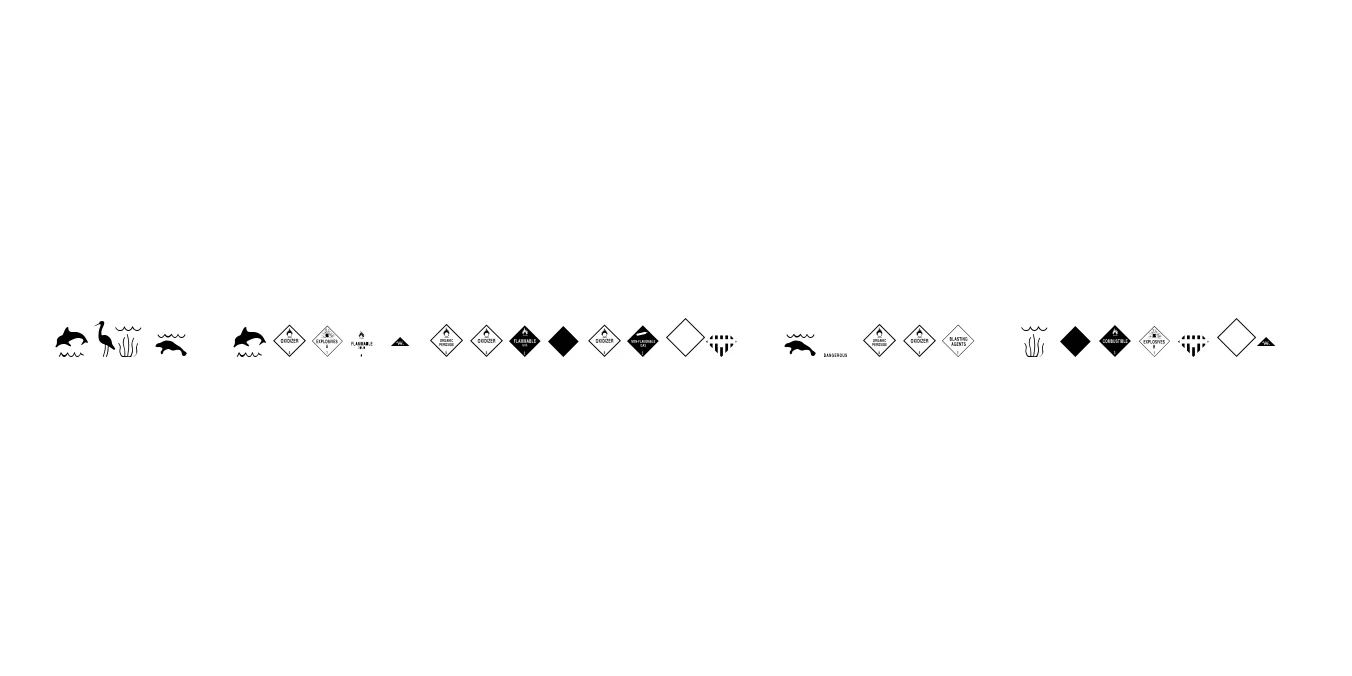
ESRI Environmental Icons Regular
Designed by ESRI (Environmental Systems Research Institute)
ESRI Environmental Icons Regular is a specialized icon font developed by ESRI, the global leader in Geographic Information System (GIS) software. This font is specifically designed to provide standardized cartographic symbols for environmental mapping and spatial data visualization. It includes a comprehensive set of glyphs representing natural phenomena, land features, and ecological data points, ensuring that maps produced across various platforms maintain visual consistency and professional clarity.
Because the icons are housed within a font file, they are vector-based, meaning they can be scaled to any size without losing resolution. This makes the ESRI Environmental Icons Regular font an essential tool for professionals in urban planning, environmental science, and geography who need to create high-quality technical reports, digital map legends, and intricate scientific illustrations that require precise, universally recognized symbols.
ESRI Environmental Icons Regular Best Uses
Used for creating professional map legends and identifying specific geographic features in GIS projects.
Ideal for representing environmental trends and ecological datasets in infographics and dashboards.
Perfect for scientific diagrams that require standardized icons for natural resources or weather conditions.